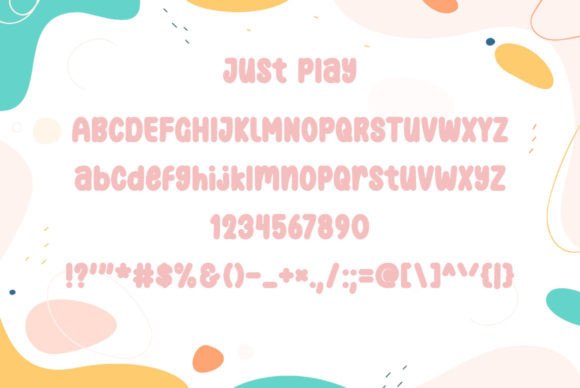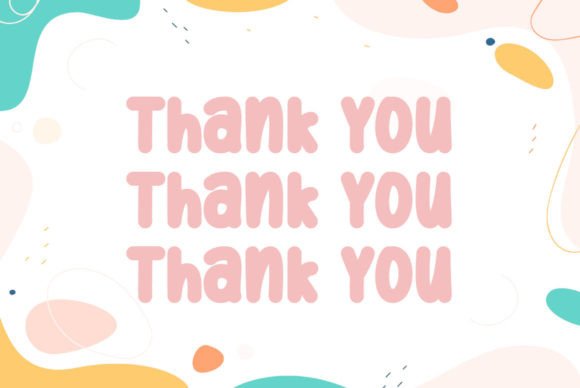
Introduction to Just Play Font Font
Fonts play a crucial role in design, and the Just Play Font font is a typeface that brings both character and versatility to any project. Whether you’re working on a branding project, a website, or a print design, the Just Play Font font offers a unique style that can elevate your work.
Just Play is a cute happy font that will bring your design into a happy and fun mood.
Perfect for creating a wide variety of new designs to match products such as banners, content, mugs, cards, shirts, stationery, Wall art, social media posts, and more .
Key Features of Just Play Font Font
Why Choose Just Play Font Font?
The Just Play Font font is more than just a typeface – it’s a design tool that helps you communicate your message with style and clarity. Its unique character set and versatile design make it suitable for a wide range of applications, from elegant invitations to bold headlines.
With its carefully crafted letterforms and balanced proportions, the Just Play Font font ensures readability and visual appeal across all mediums.
What makes Just Play Font font special?
The Just Play Font font stands out with its unique design, exceptional readability, and versatility across various design applications.